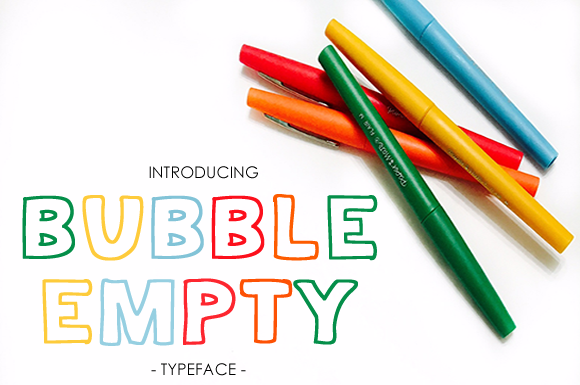
Bubble Empty Font: A Refreshing and Versatile Display Font
The world of typography is vast and diverse, with countless fonts to choose from, each with its unique character and personality. Among these, the Bubble Empty font stands out for its refreshing and bold appearance, making it perfect for displays and headlines. In this article, we’ll dive into the features and benefits of the Bubble Empty font, exploring its uses and applications in various projects.
What is Bubble Empty Font?
Bubble Empty font is a type of outlined block font characterized by its thick lines and refreshing appearance. The font’s design features a unique bubble-like shape, with empty spaces within the letters, giving it a distinctive and eye-catching look. This font is specifically designed for display purposes, making it ideal for headlines, titles, and other attention-grabbing elements.
Key Features of Bubble Empty Font
- Thick and Bold Appearance: The Bubble Empty font boasts a thick and bold appearance, making it perfect for displays and headlines that require attention.
- Refreshing and Unique Design: The font’s bubble-like shape and empty spaces within the letters give it a refreshing and unique design that’s sure to stand out.
- Outlined Block Font: The Bubble Empty font is an outlined block font, which means it features a clear and defined outline, making it easy to read and understand.
- Versatile and Adaptable: This font is versatile and adaptable, making it suitable for a wide range of project types, from digital displays to print materials.
Benefits of Using Bubble Empty Font
The Bubble Empty font offers several benefits, including:
- Attention-Grabbing: The font’s bold and unique design makes it perfect for grabbing attention and drawing focus to specific elements.
- Easy to Read: Despite its bold appearance, the Bubble Empty font is easy to read, making it suitable for use in headlines and titles.
- Versatile: The font’s adaptability makes it suitable for use in various projects, from digital displays to print materials.
- Refreshes Design: The Bubble Empty font’s refreshing design can help revitalize and refresh your design, making it perfect for projects that require a modern and bold look.
Use Cases for Bubble Empty Font
The Bubble Empty font is suitable for a wide range of projects and applications, including:
- Digital Displays: The font’s bold and attention-grabbing design makes it perfect for use in digital displays, such as video titles, social media graphics, and website headers.
- Print Materials: The Bubble Empty font is also suitable for use in print materials, such as posters, flyers, and brochures.
- Headlines and Titles: The font’s bold and easy-to-read design makes it perfect for use in headlines and titles, helping to draw attention and convey important information.
- Branding and Identity: The Bubble Empty font can also be used in branding and identity projects, such as logos, business cards, and letterheads.
Tips for Using Bubble Empty Font
To get the most out of the Bubble Empty font, consider the following tips:
- Use it Sparingly: Due to its bold and attention-grabbing design, it’s best to use the Bubble Empty font sparingly, reserving it for headlines and titles.
- Pair it with Other Fonts: The Bubble Empty font can be paired with other fonts to create visual interest and add variety to your design.
- Adjust Font Size and Color: Experiment with different font sizes and colors to find the perfect combination for your design.
- Consider Legibility: While the Bubble Empty font is easy to read, it’s essential to consider legibility when using it, especially in smaller font sizes.
In conclusion, the Bubble Empty font is a refreshing and versatile display font that’s perfect for headlines and titles. Its unique bubble-like design and bold appearance make it attention-grabbing and easy to read. With its adaptability and range of uses, the Bubble Empty font is an excellent addition to any design project. By following the tips outlined above and experimenting with different uses and applications, you can harness the power of the Bubble Empty font to elevate your design and capture your audience’s attention.